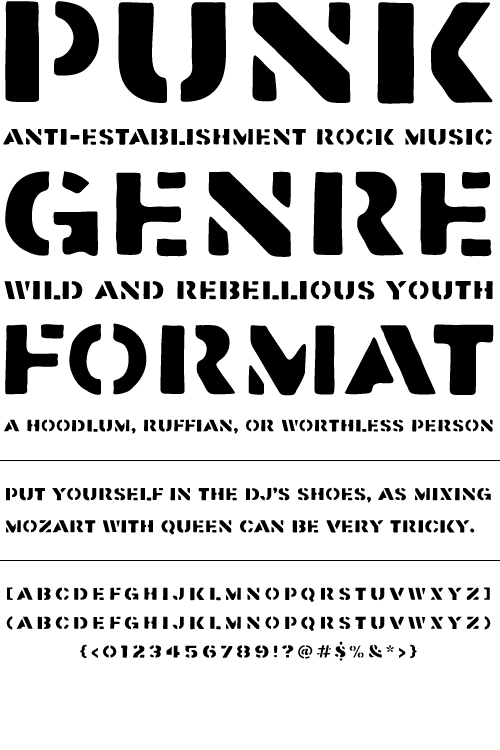
Findon
Findon is a classic sans serif uppercase stencil typeface. It is reminiscent of the days before computers when the best way to reproduce letters quickly was to stencil them.